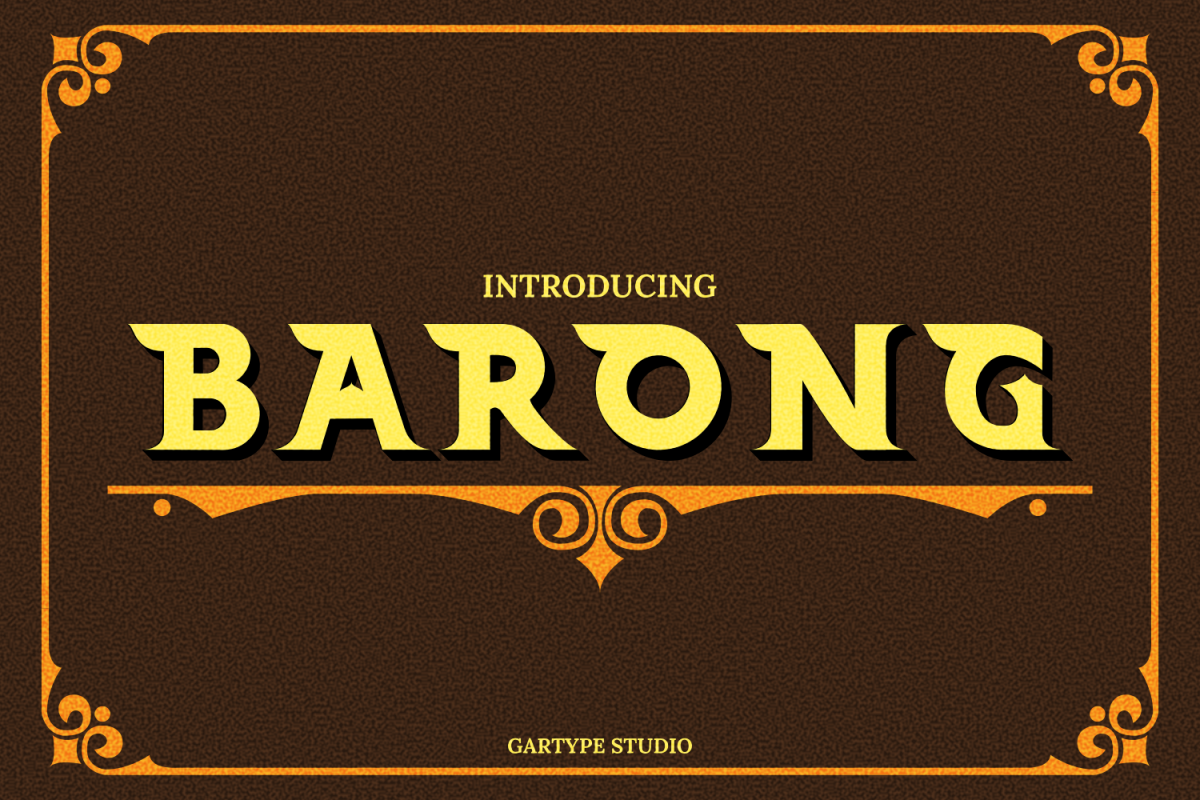
Barong Regular
Barong Extrude
Barong Regular Two
Introducing Barong a font Inspired by Indonesian culture in Balinesse Culture.
Barong is a Vintage style font and have two different styles ! Extruded font and also have many ornament for giving the best quality for your project. Barong is good for making Label, logo, branding, and many more